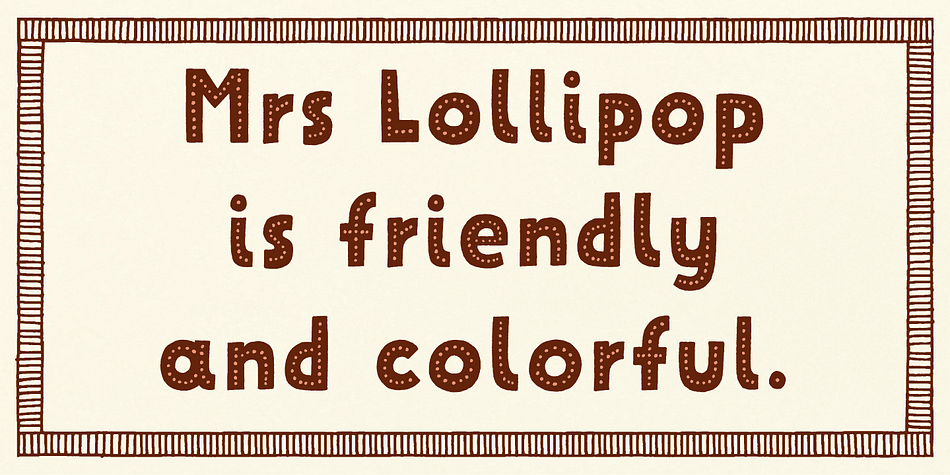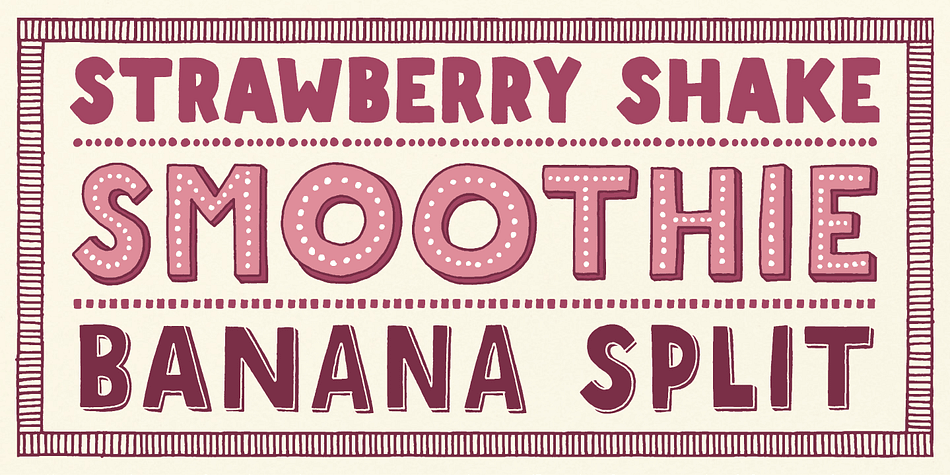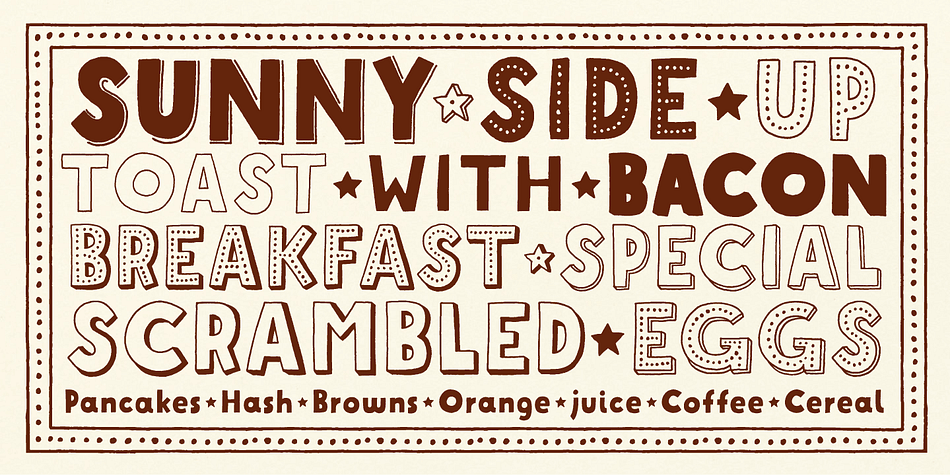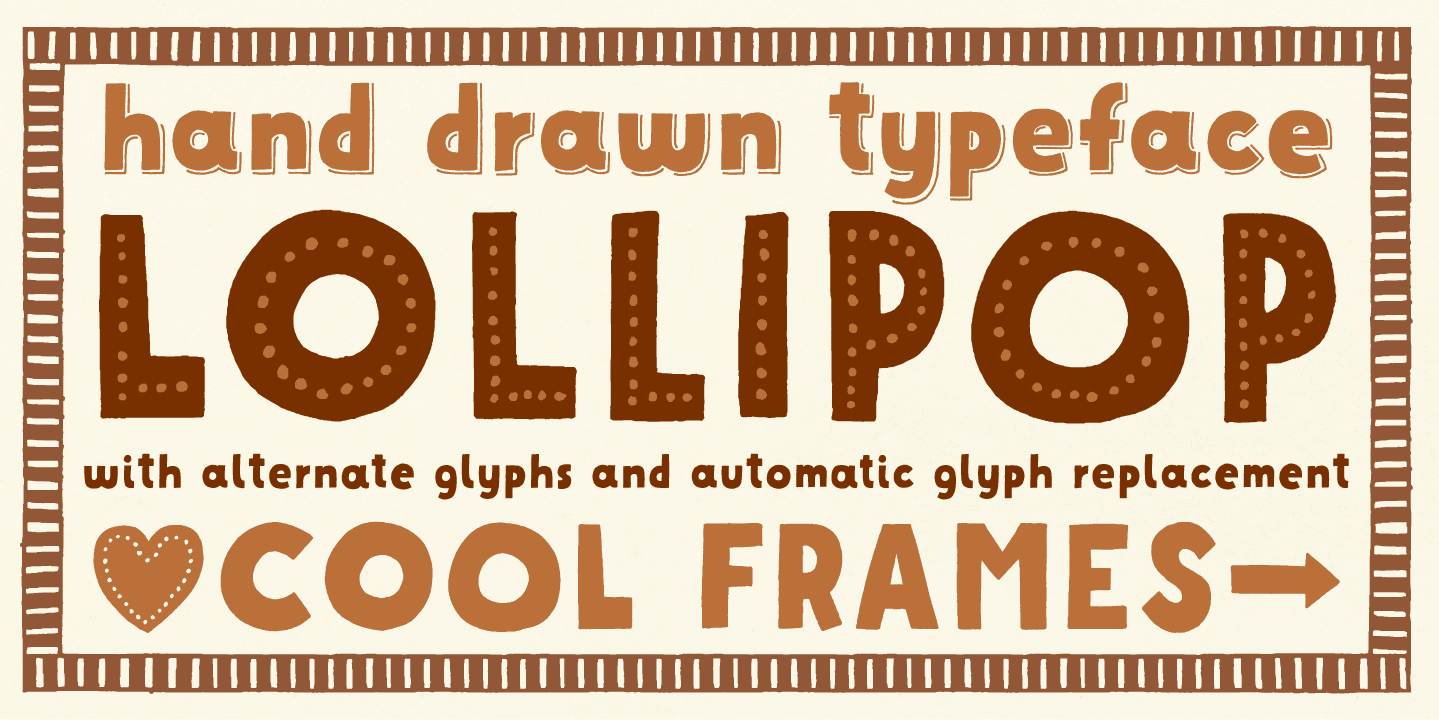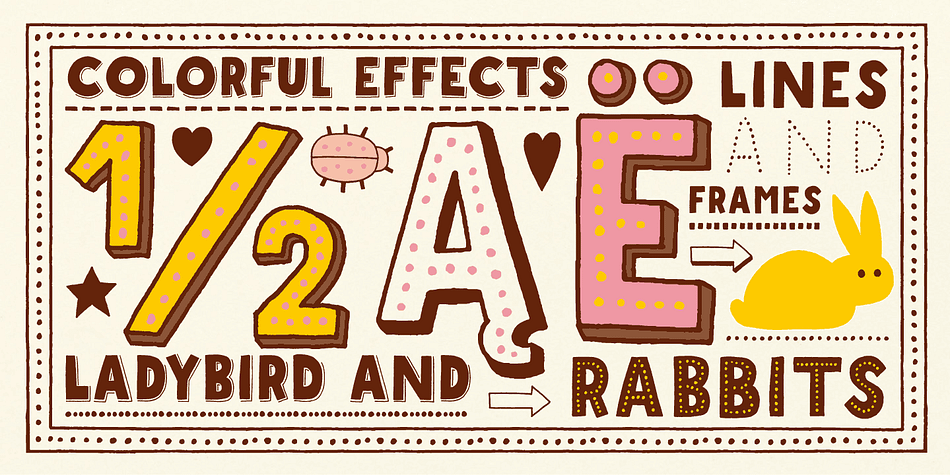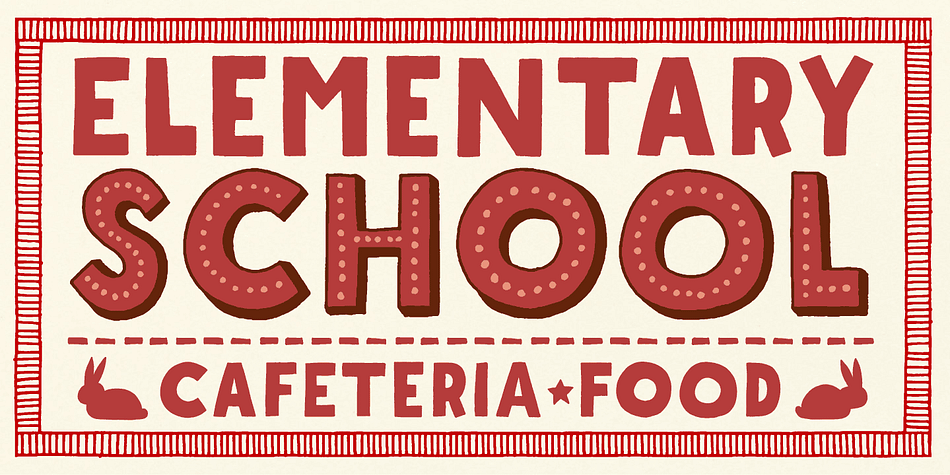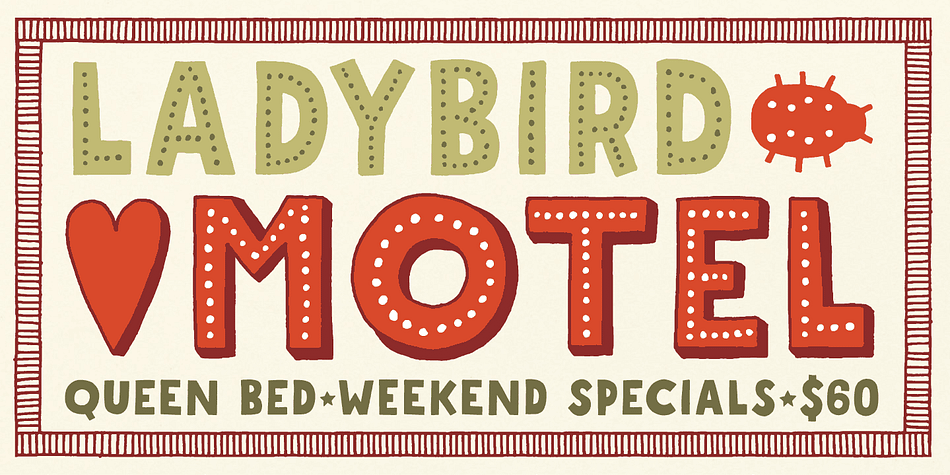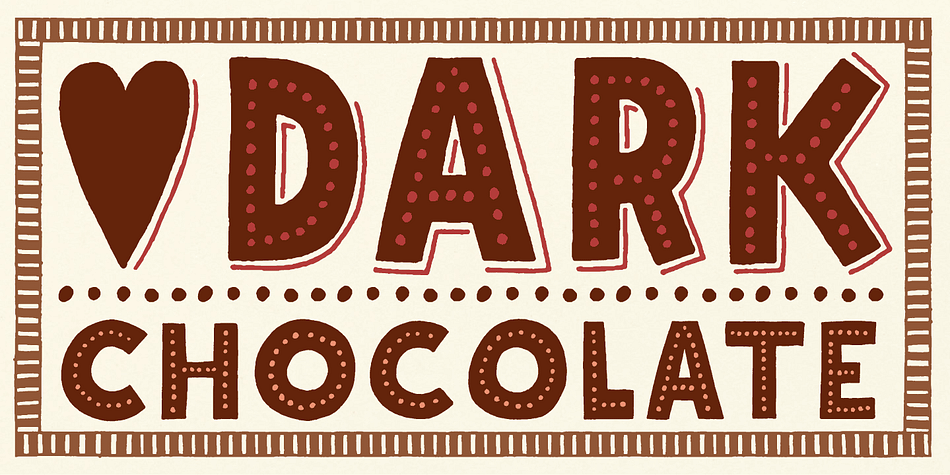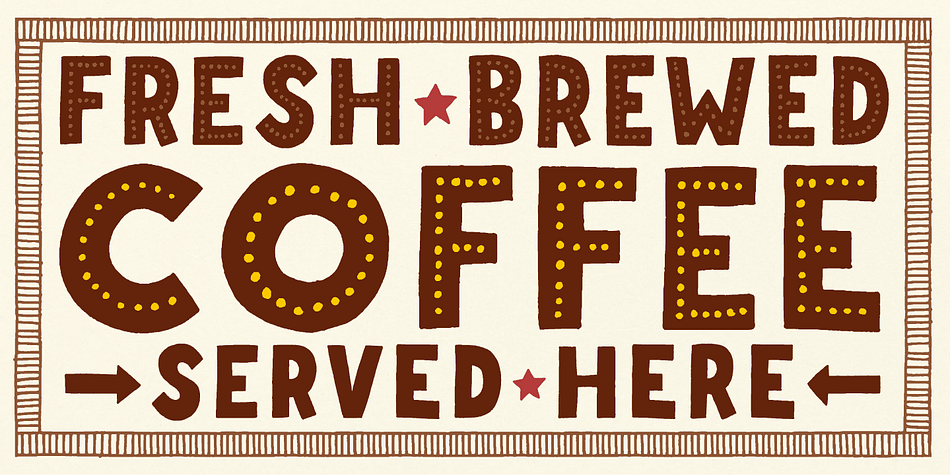
Mrs Lollipop is a display sans and hand display font family. This typeface has fourteen styles and was published by Hipopotam Studio.
Mrs Lollipop is a hand drawn narrow typeface designed for one of our books. You can layer different styles over the background style to achieve lots of colorful effects. Check out the manual for details.
Mrs Lollipop has upper and lowercase characters with up to three alternate glyphs. Build in OpenType Contextual Alternates feature will automatically set alternate glyphs depending on frequency of appearance of the same character (even in web font but only in HTML5 browsers). The script doesn’t throw random glyphs.
It has lines, frames, hearts, stars, ladybird and two rabbits.